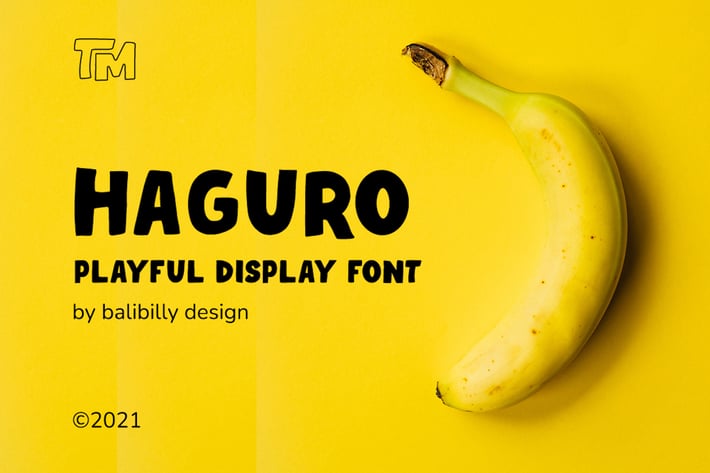
Haguro | Bold Display Font
Introducing Haguro
This playful display font is a fun blend of styles that can be used for storybooks, comics, scrapbooks, websites, kid's movie cover, cute logo, child care advertisement, Instagram post, game app headers, adorable t-shirt, even labeling your kid's lunchbox.
These fonts are different from others and an excellent addition to any font collector’s library. Guaranteed to make your text bouncy & look so natural like handcrafted! Easy to start creating stand-out designs with this font.